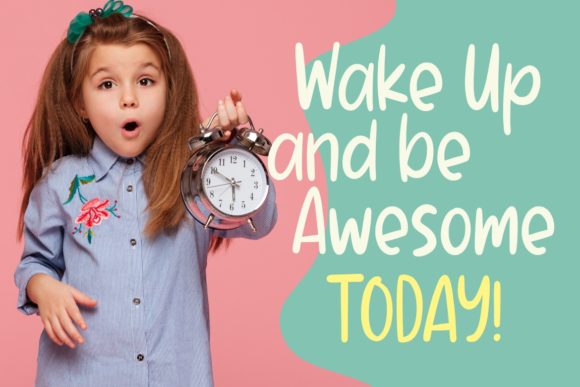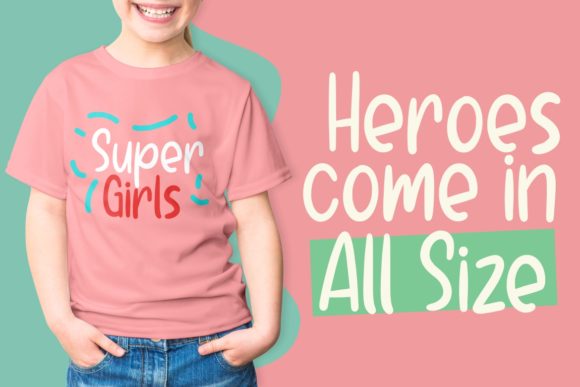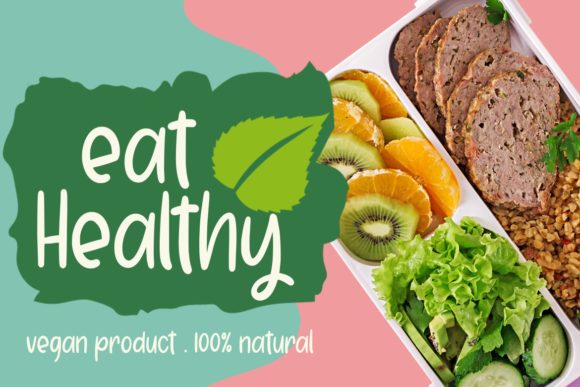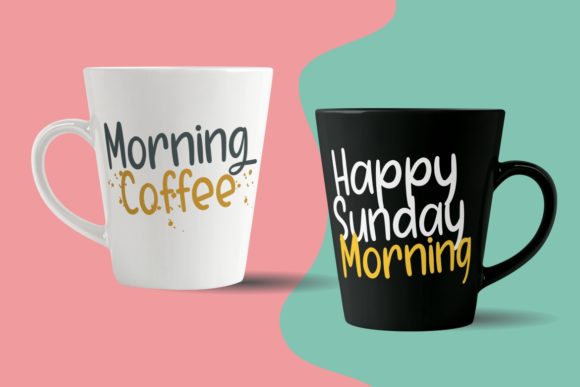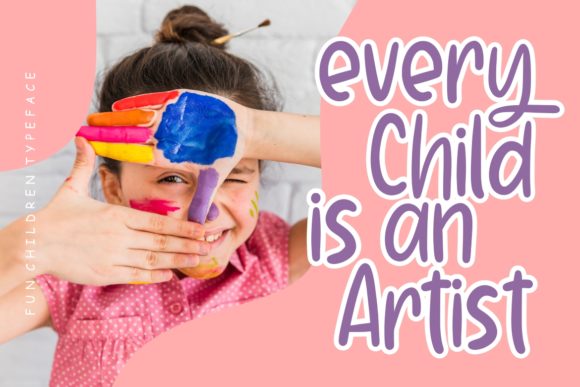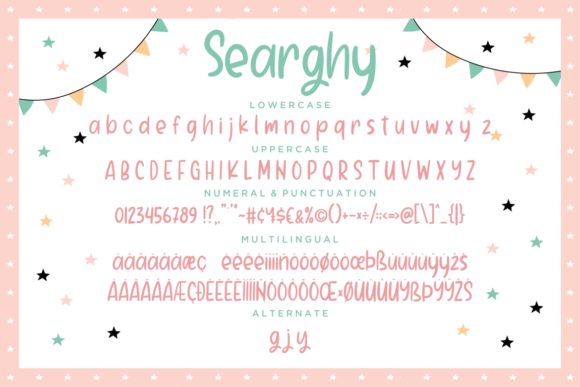
Introduction to Searghy Font Font
Fonts play a crucial role in design, and the Searghy Font font is a typeface that brings both character and versatility to any project. Whether you’re working on a branding project, a website, or a print design, the Searghy Font font offers a unique style that can elevate your work.
| 📌 Font Name | Searghy Font |
| 👤 Author | CreatypeStudio |
Searghy is a fun and sweet display font.
Key Features of Searghy Font Font
Why Choose Searghy Font Font?
The Searghy Font font is more than just a typeface – it’s a design tool that helps you communicate your message with style and clarity. Its unique character set and versatile design make it suitable for a wide range of applications, from elegant invitations to bold headlines.
With its carefully crafted letterforms and balanced proportions, the Searghy Font font ensures readability and visual appeal across all mediums.
What makes Searghy Font font special?
The Searghy Font font stands out with its unique design, exceptional readability, and versatility across various design applications.